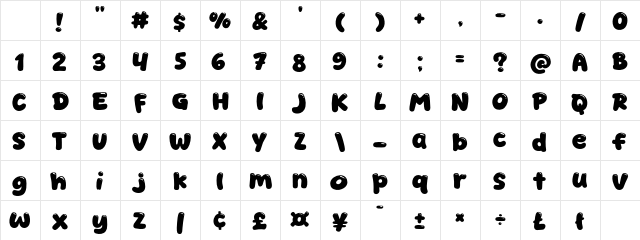
Complete Vito Bold Regular glyph index. Displaying only characters natively supported by Vito Bold Regular font.
Vito Bold is a composed and adaptable typeface that performs quietly and consistently across a wide range of design contexts. Its bold stroke weight gives it real presence on the page.